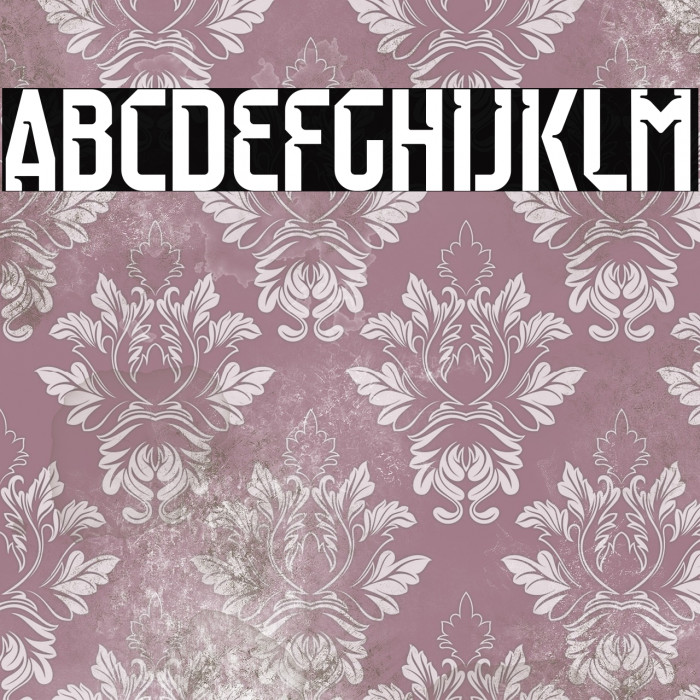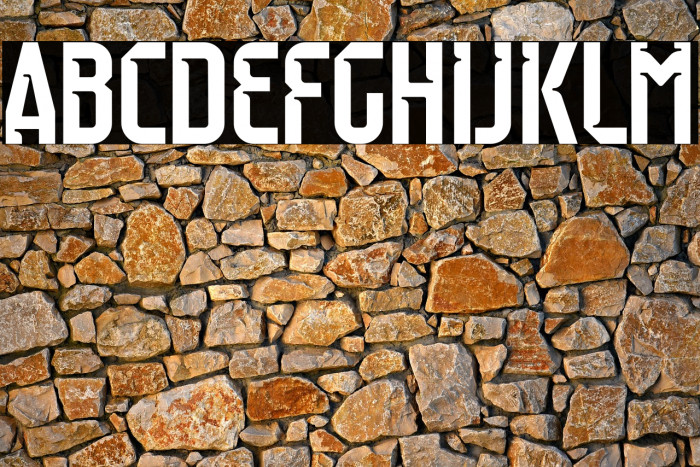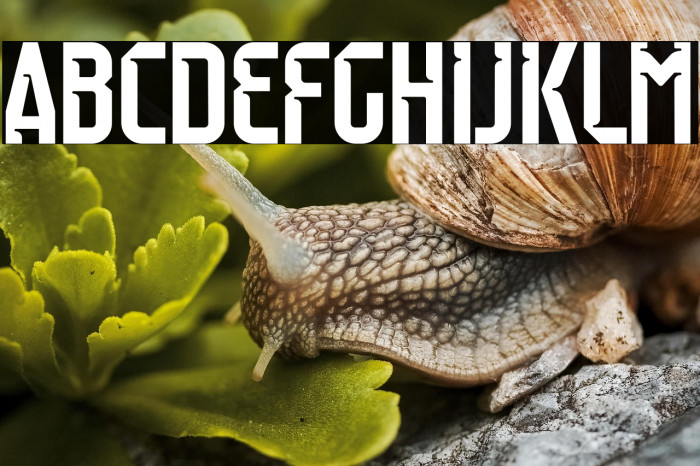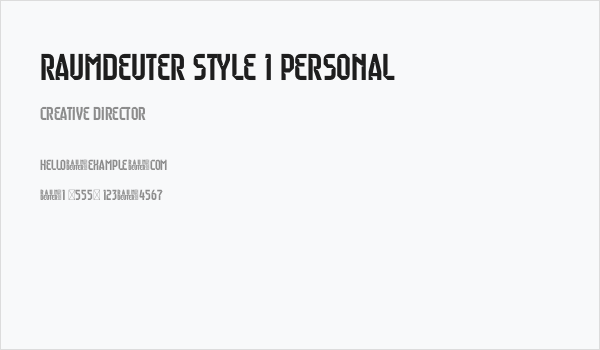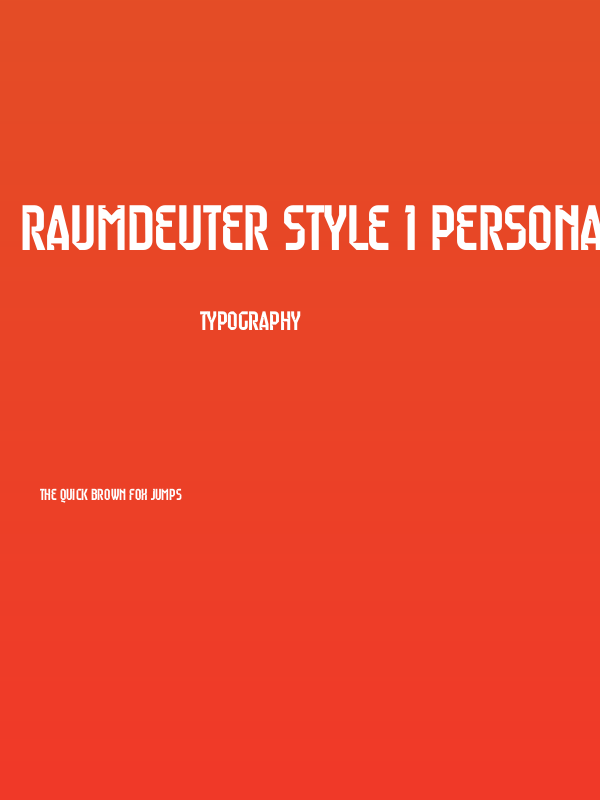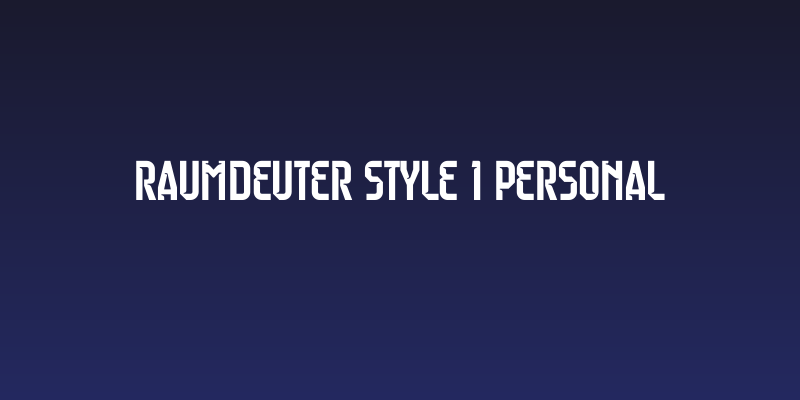
Raumdeuter Style 1 Personal Font
Raumdeuter Style 1 Personal Description
This font features a bold, geometric design with sharp angles and a strong presence. The characters are constructed with a uniform thickness, giving them a solid and impactful appearance. The uppercase letters are particularly striking, with a modern and edgy style that commands attention. The numerals and special characters maintain the same boldness, ensuring consistency across all elements. This font is ideal for projects that require a strong visual impact and a contemporary feel.
Proposed ProjectsIdeal for branding, posters, headlines, and any design requiring a strong visual impact.